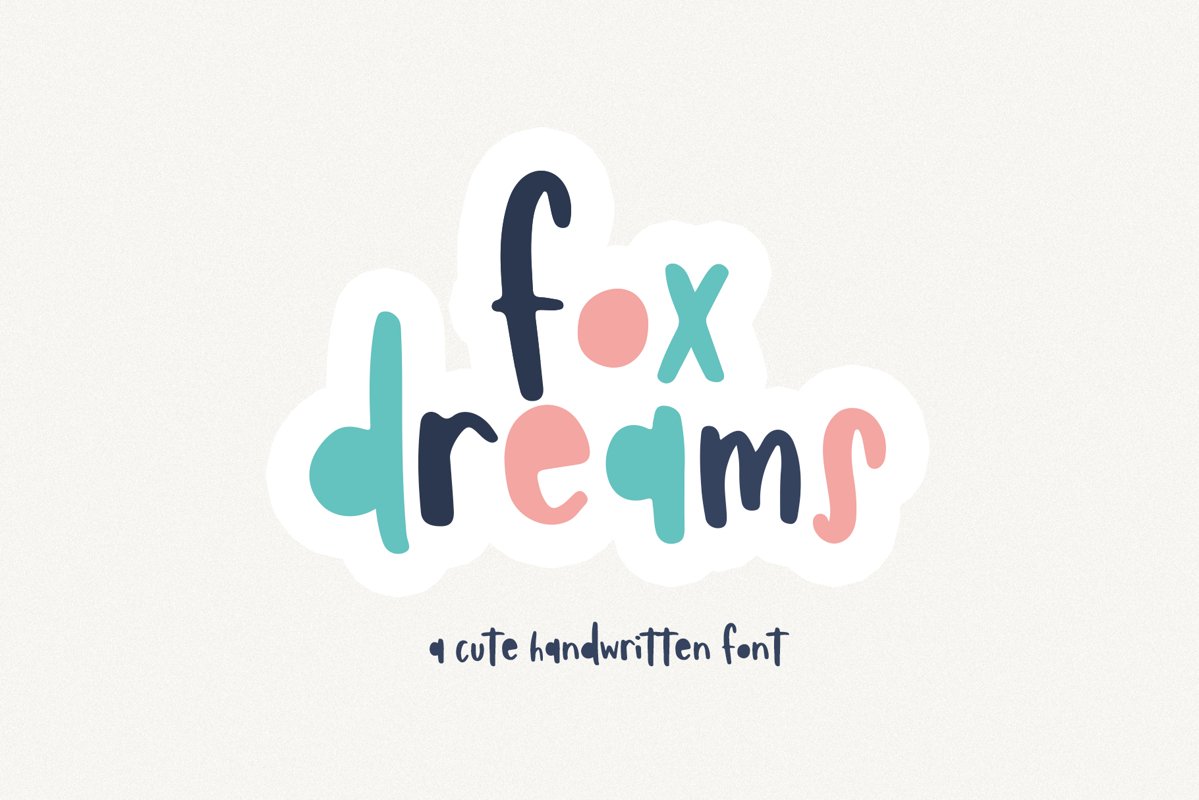
Fox Dreams - A Fun Handwritten Font
FoxDreams
Fox Dreams is a fun handwritten font!
The open letters are solid - there are alternate regular characters available for each one of these letters.
This font is perfect for quotes, shirt designs, websites, branding, children's designs,  blogs, logos, invitations and more!
Most accent characters included.